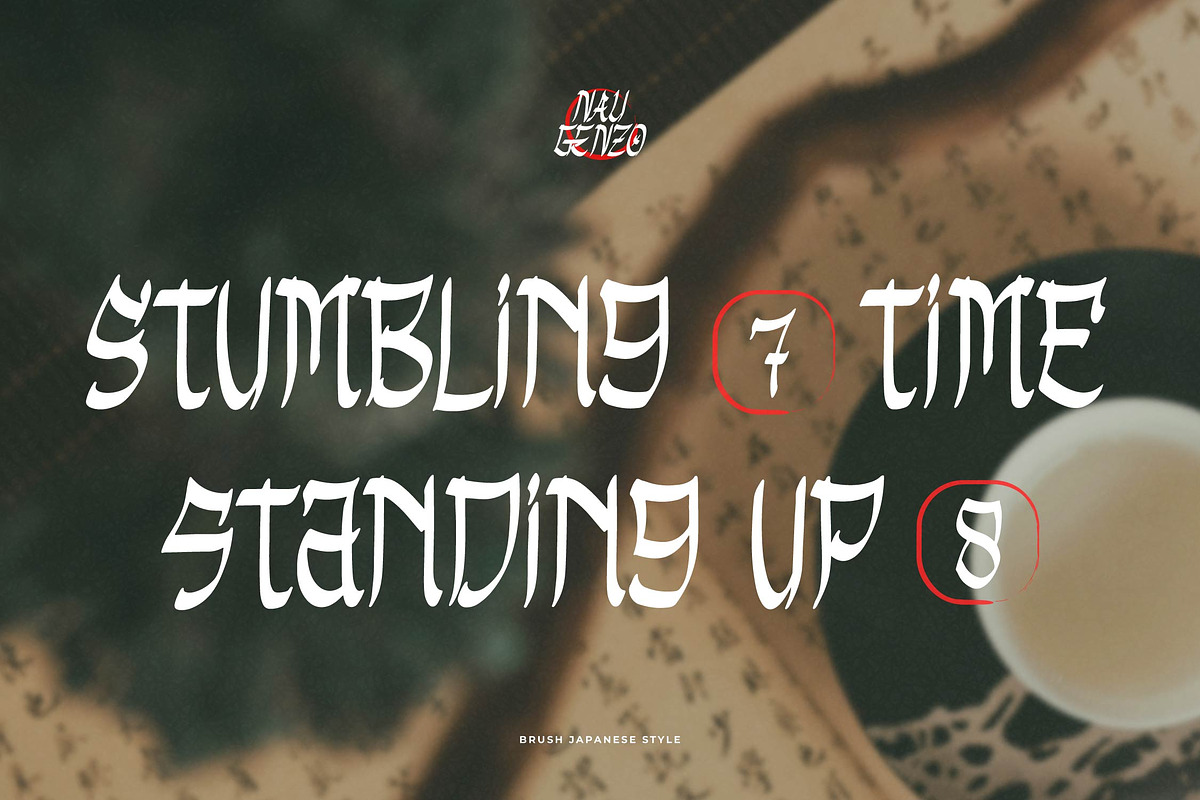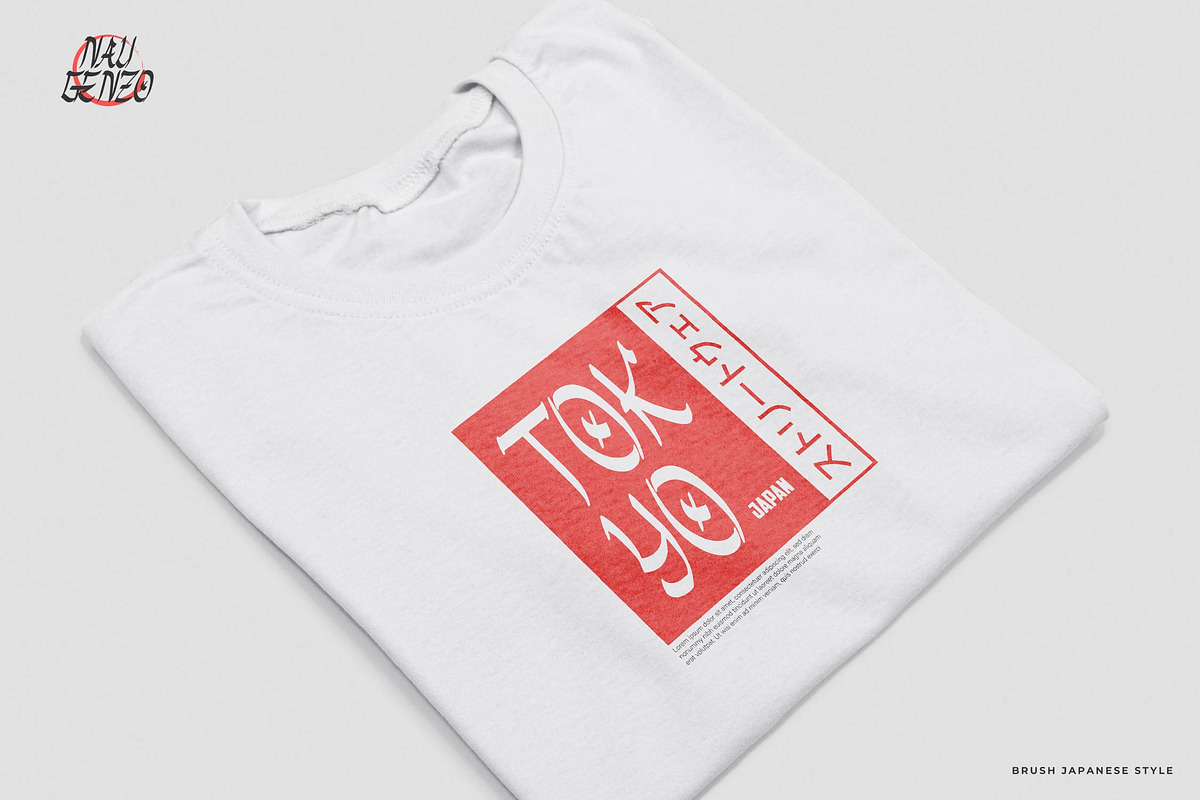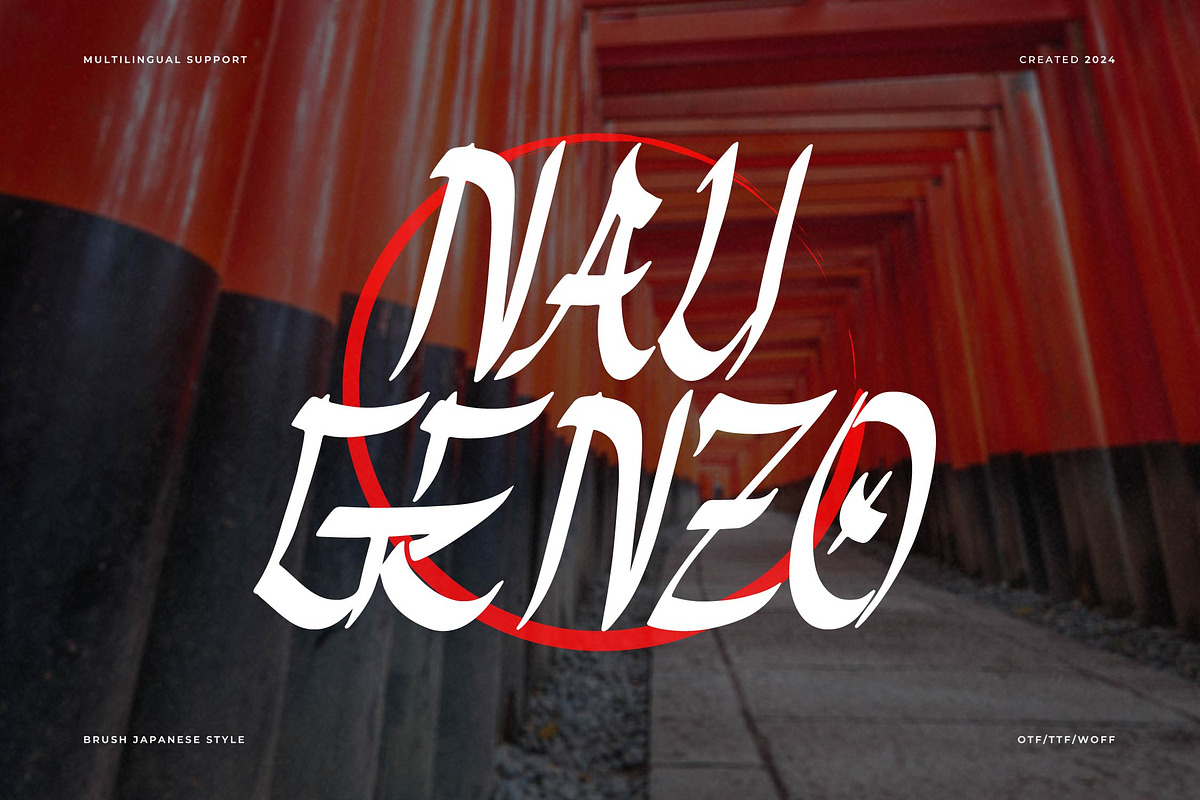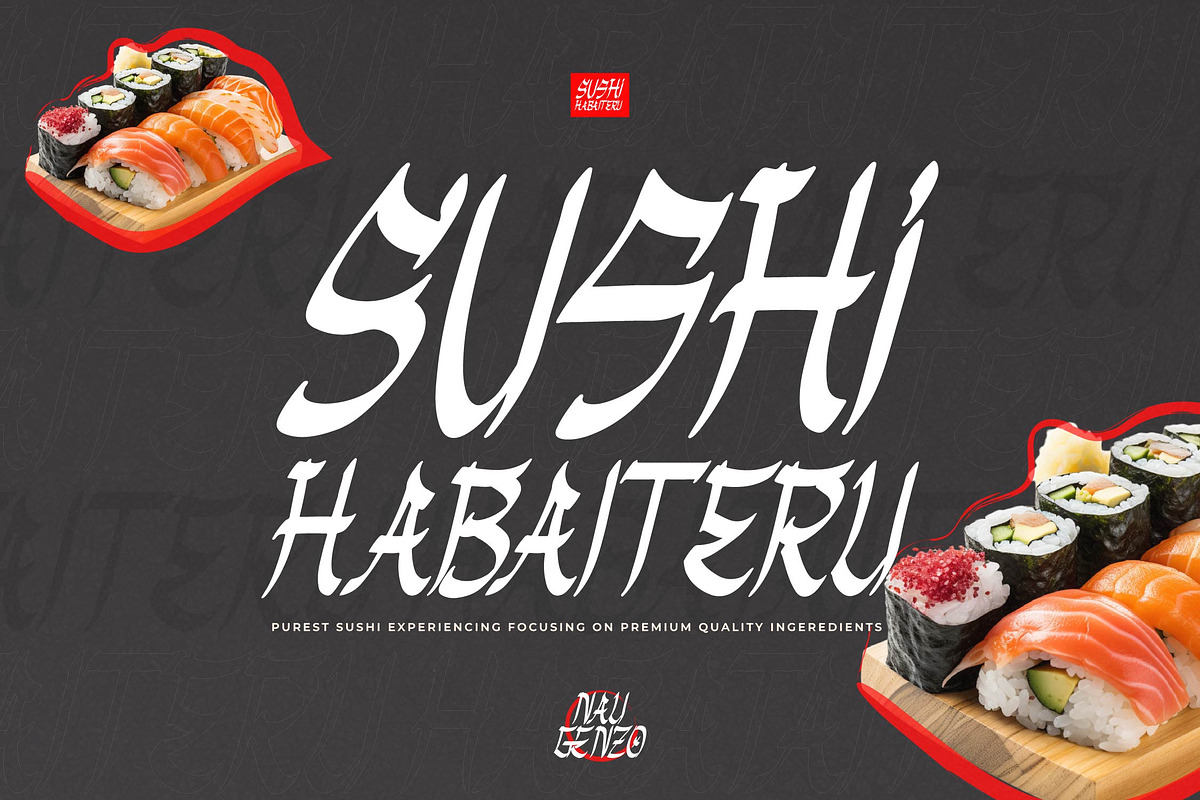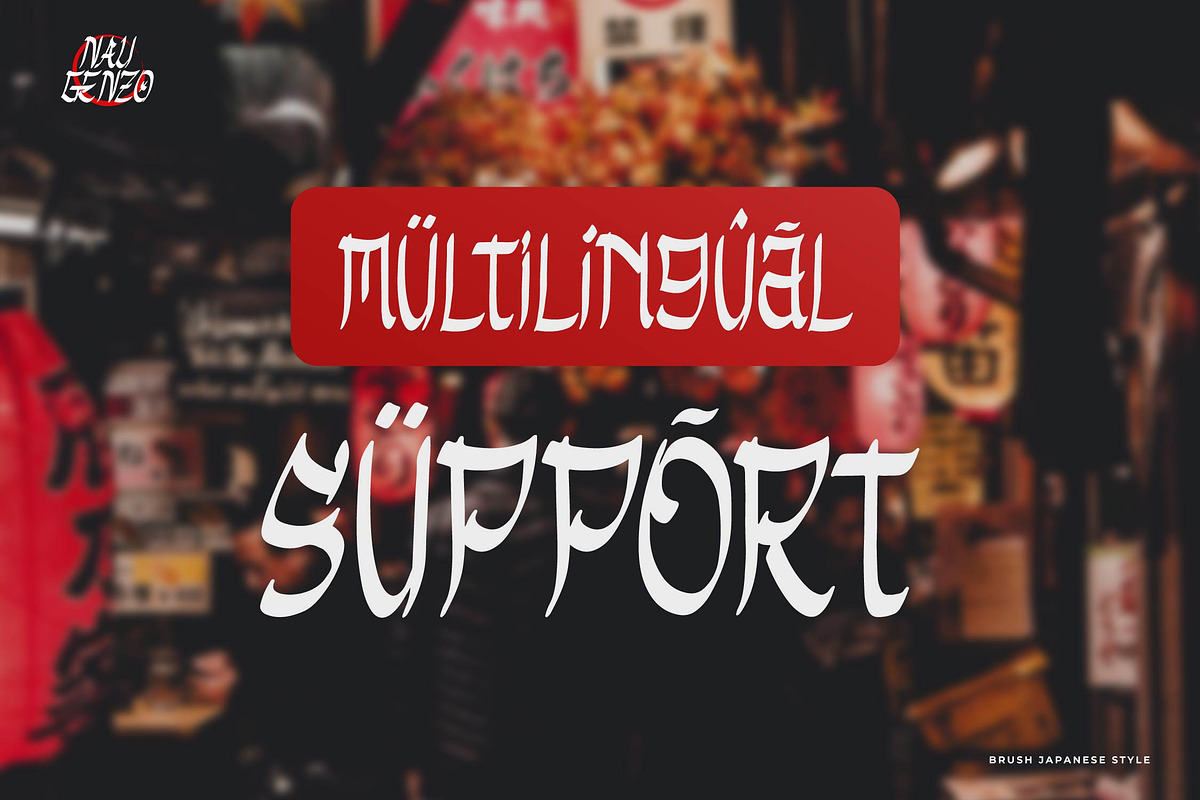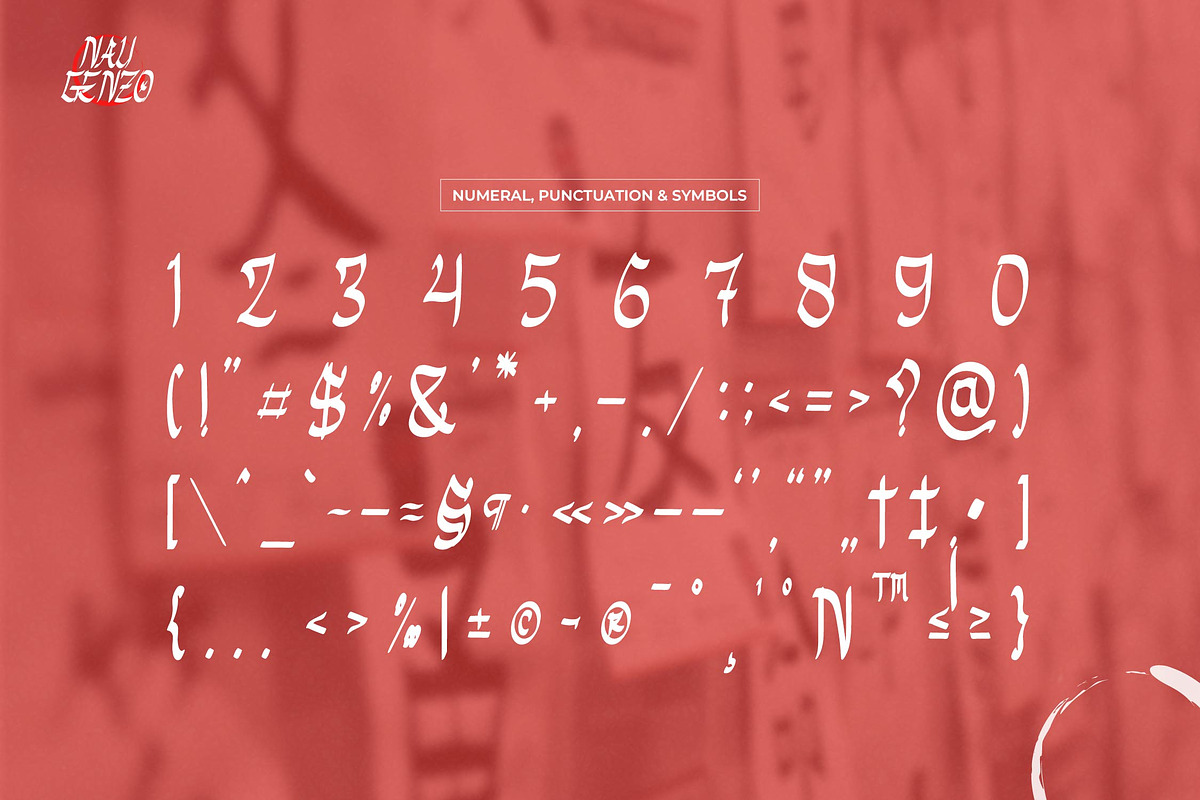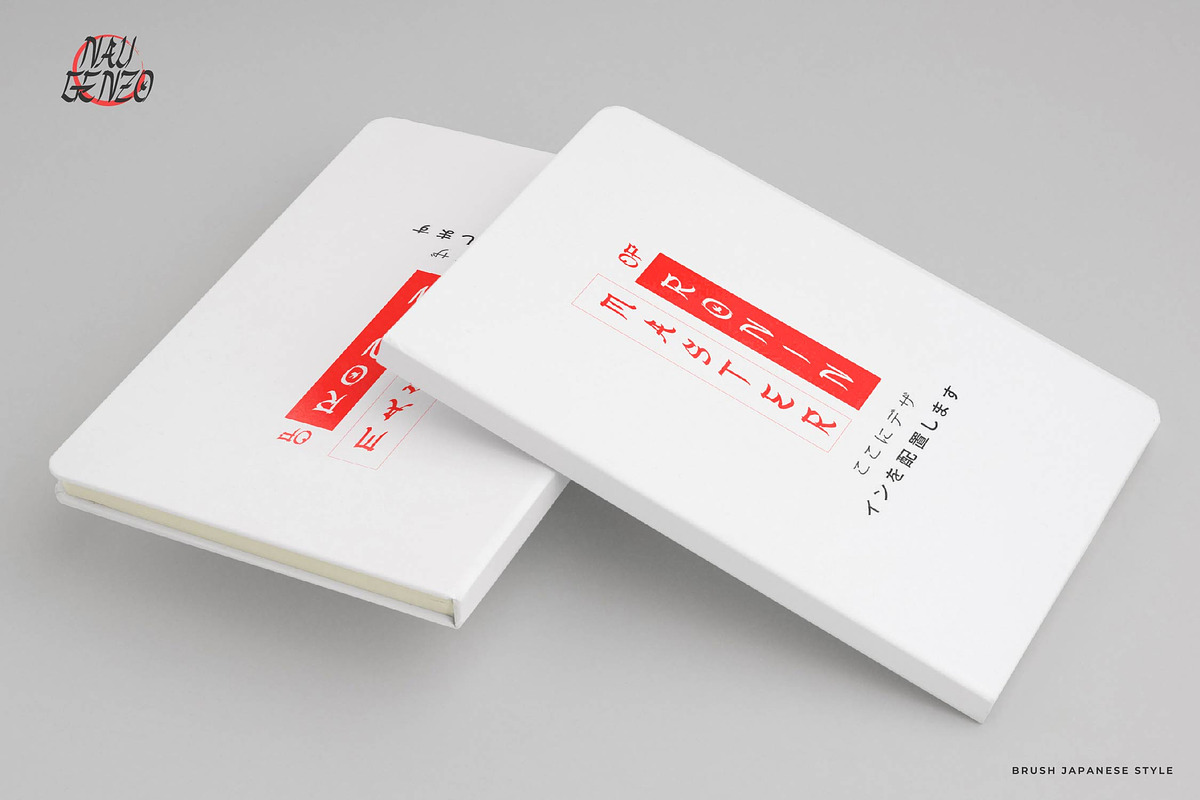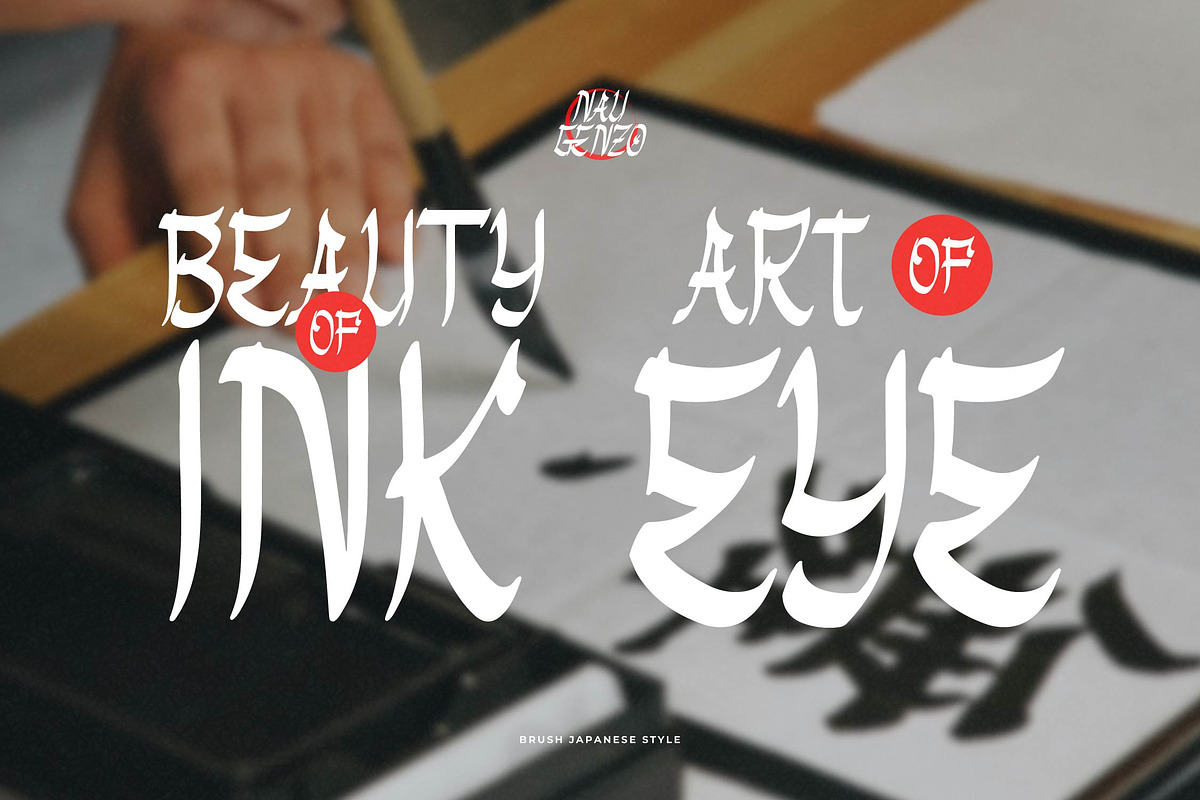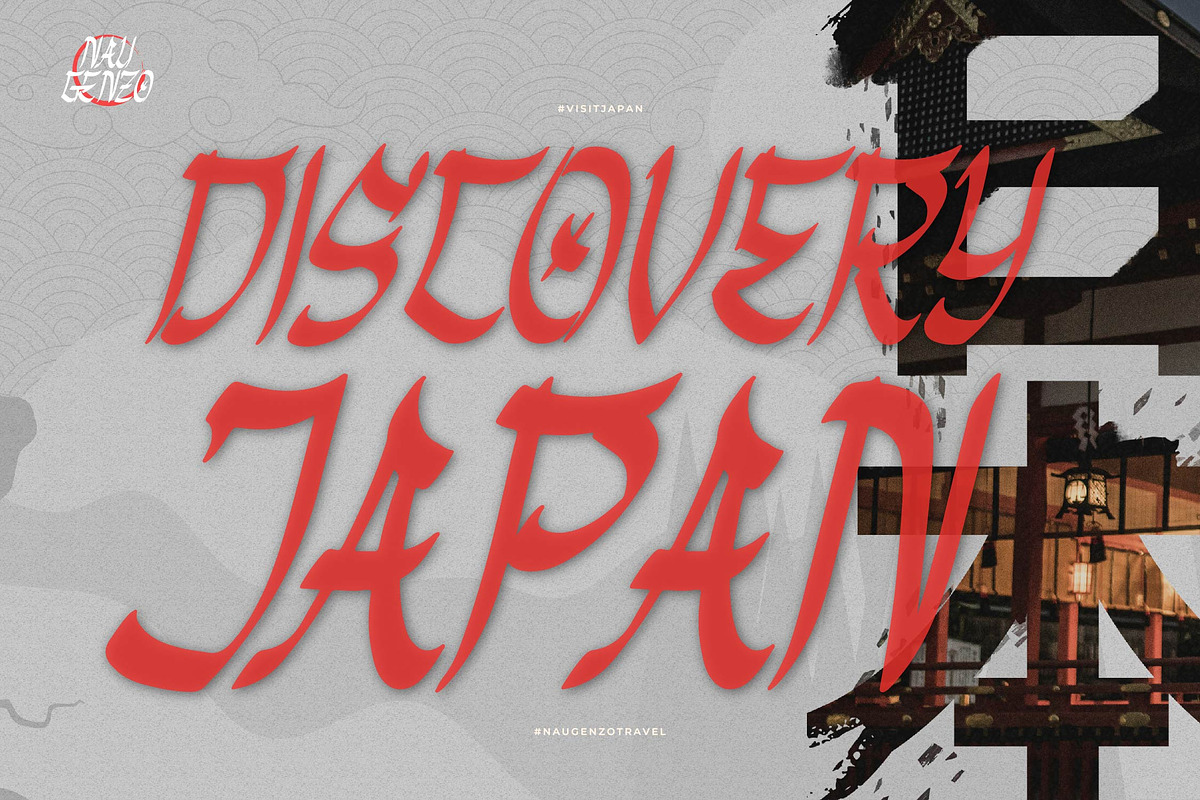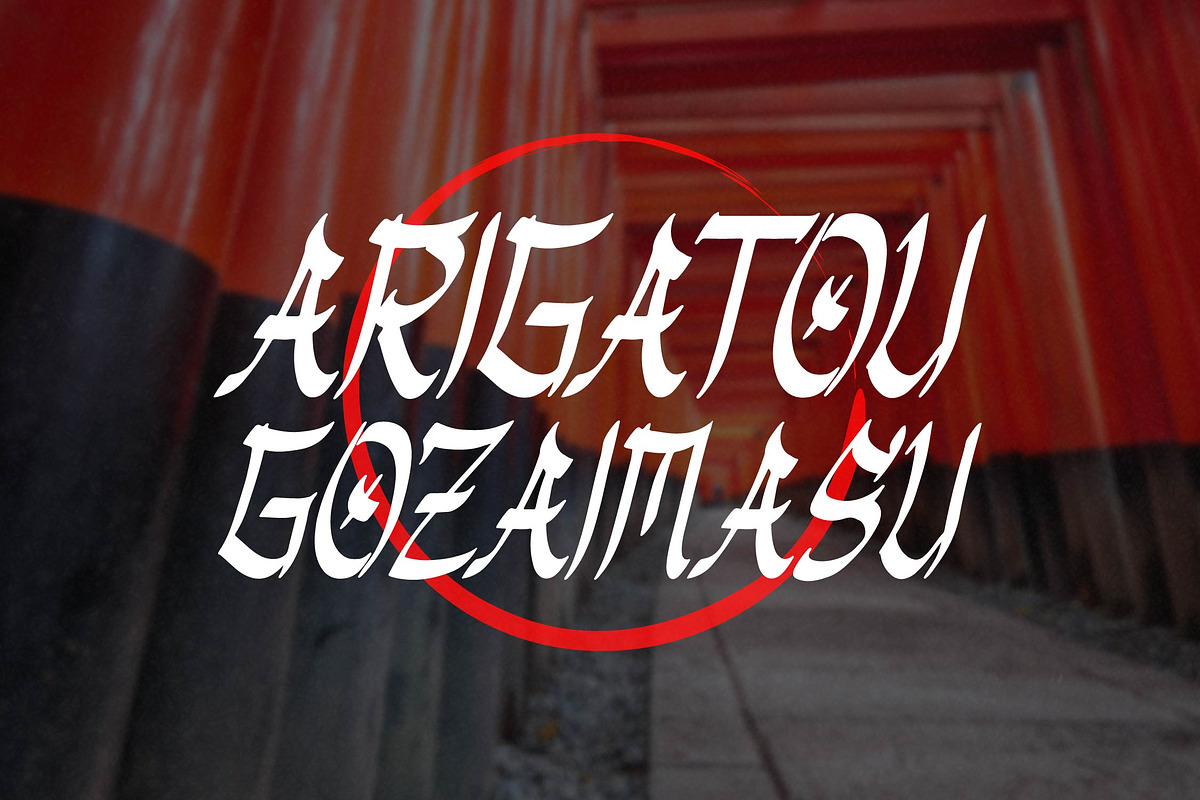
Nau Genzo | Brush Japanese Style
Nau Genzo | Brush Japanese Style, from Denustudios, suitable for any projects such as: logos, branding projects, homeware designs, product packaging, mugs, quotes, posters, shopping bags, t-shirts, book covers, name card, invitation cards, greeting cards, label, photography, watermark, special events, and all your other lovely projects that need a Brush Japanese Style taste.